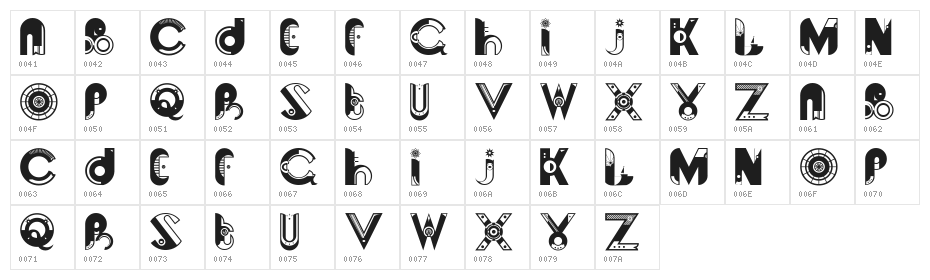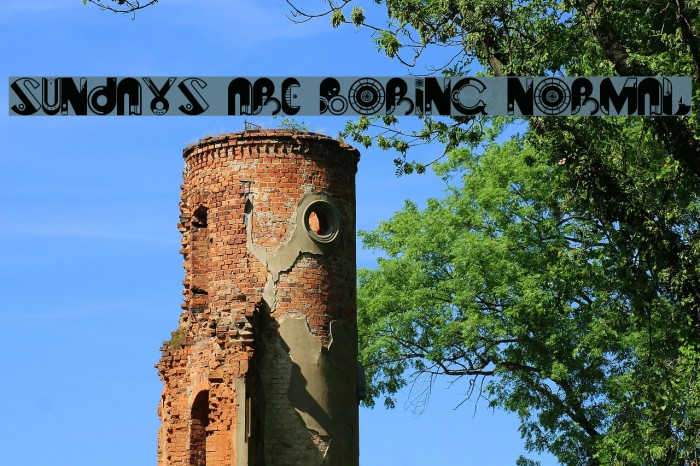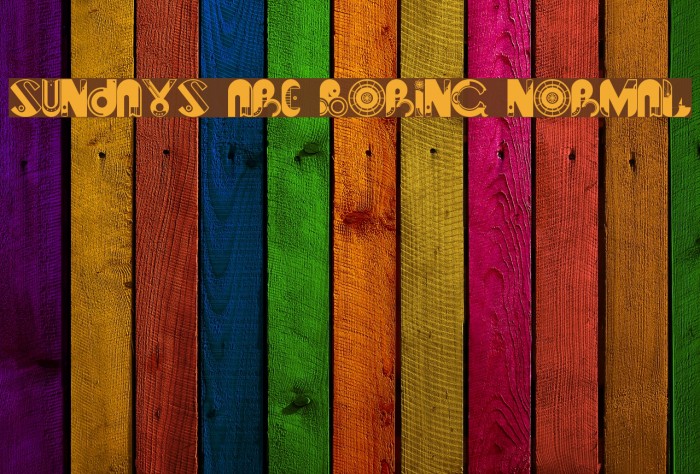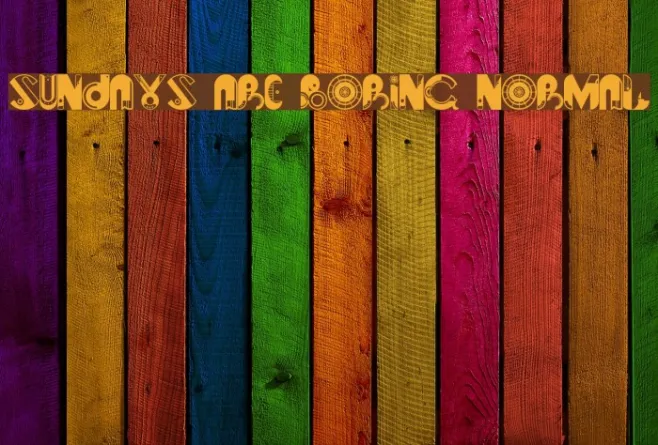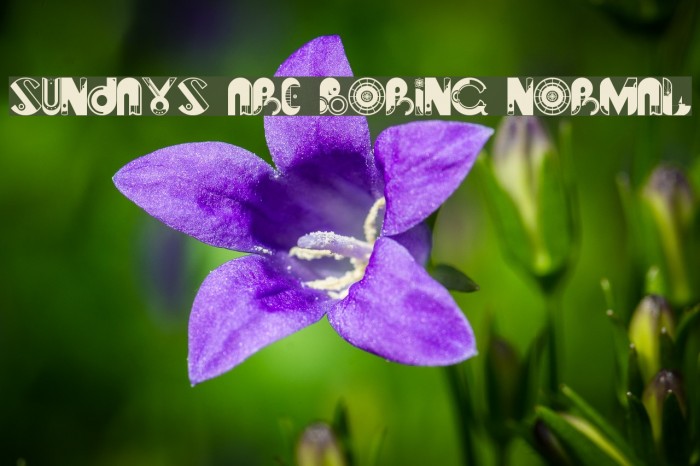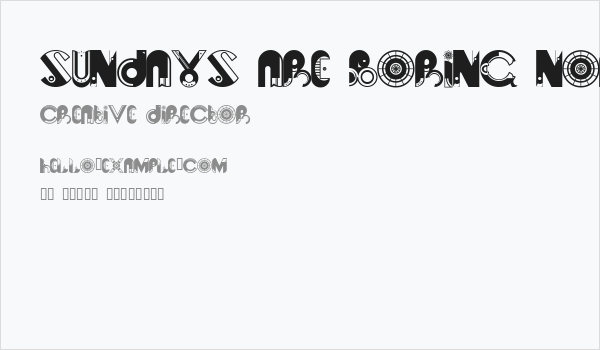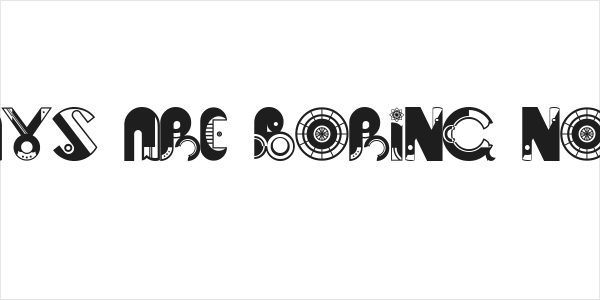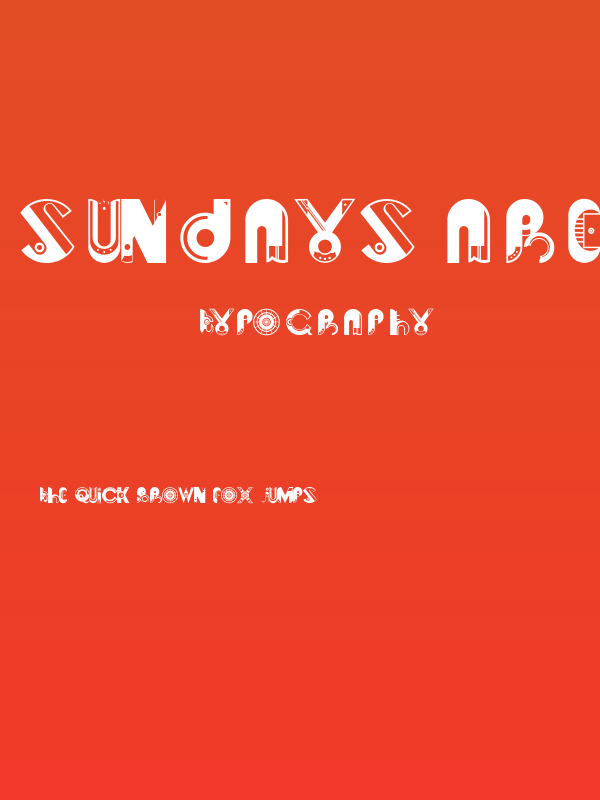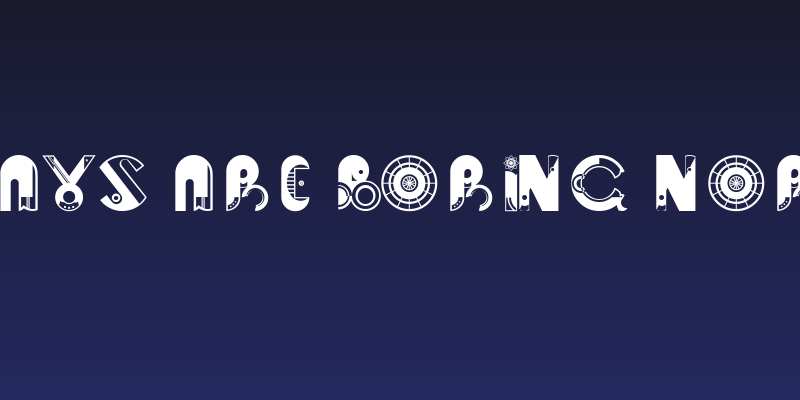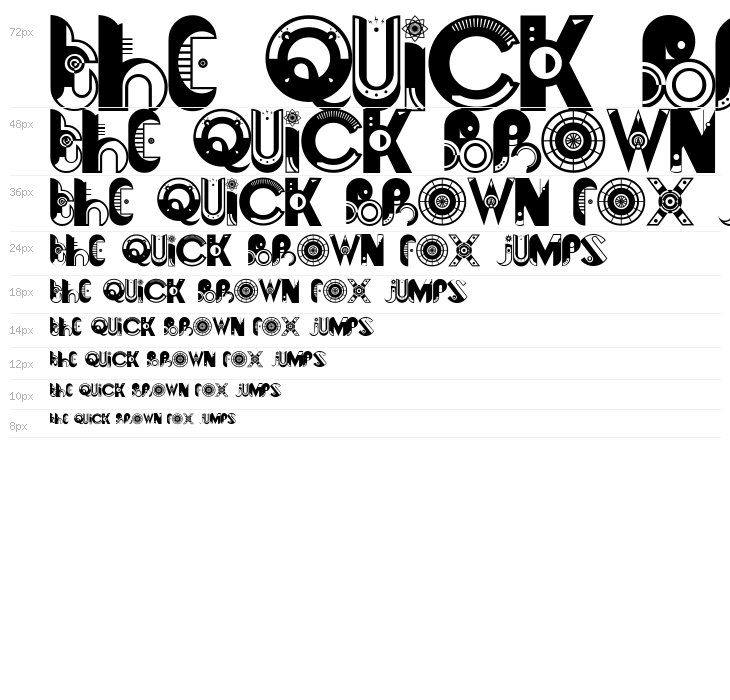
Sundays are Boring Normal Font
Sundays are Boring Normal Description
This font is a highly decorative and playful typeface that incorporates a variety of intricate patterns and shapes within each character. The letters are bold and feature unique design elements such as stripes, dots, and geometric shapes, giving each character a distinct and artistic appearance. The uppercase and lowercase letters maintain a consistent style, with a strong emphasis on creativity and visual interest. The numbers and special characters follow the same decorative theme, making this font ideal for projects that require a fun and engaging aesthetic.
| Proposed Projects | Ideal for creative projects such as posters, invitations, children's books, and branding that requires a whimsical and artistic touch. |